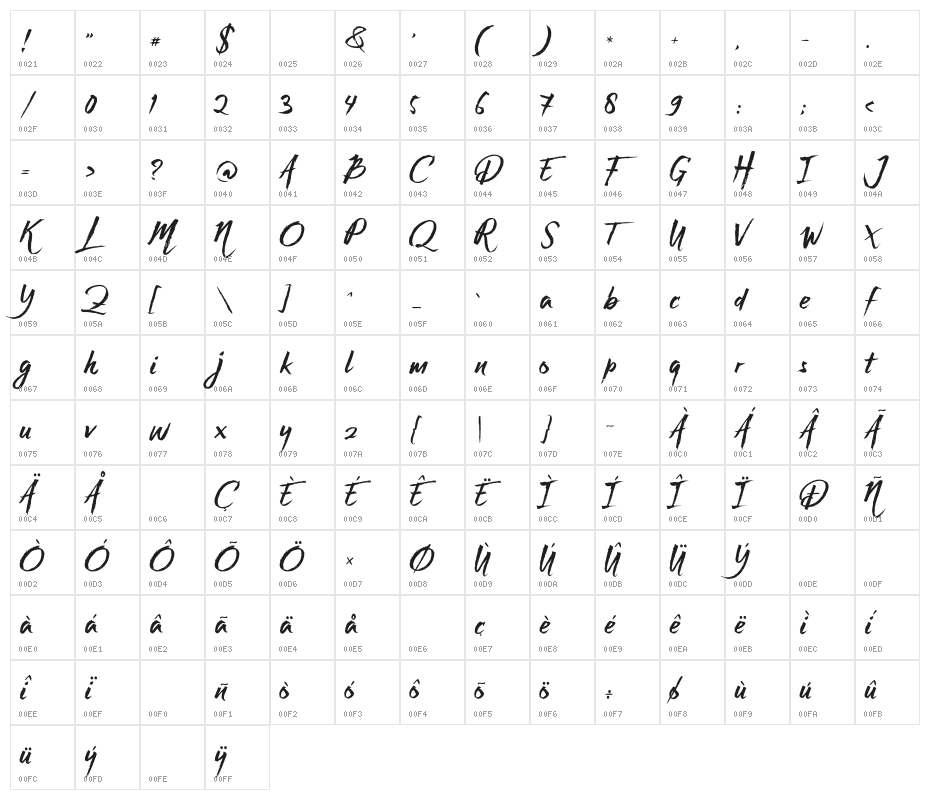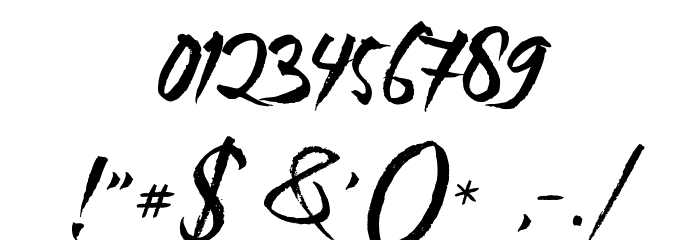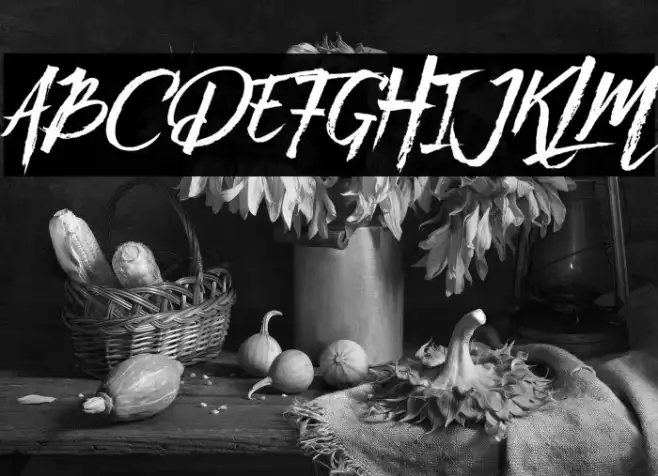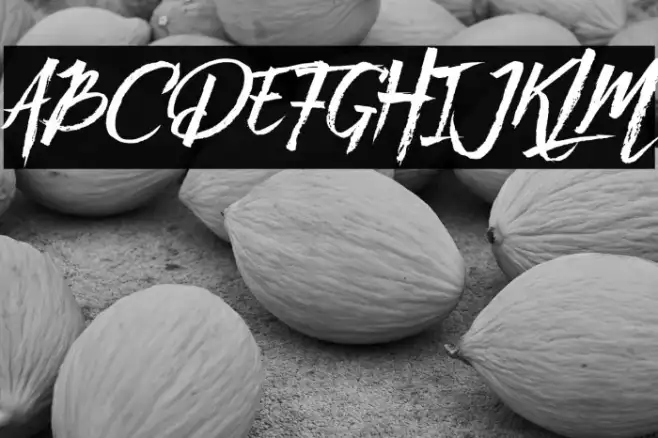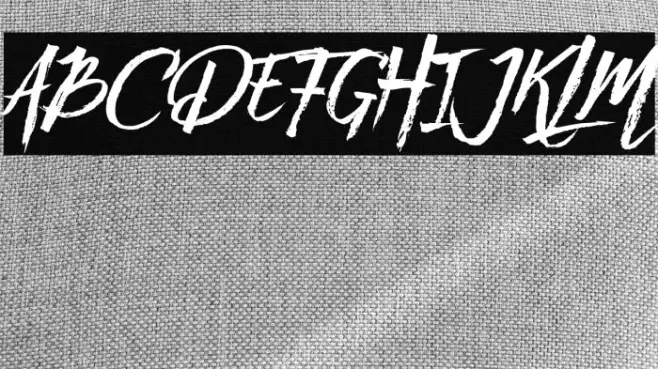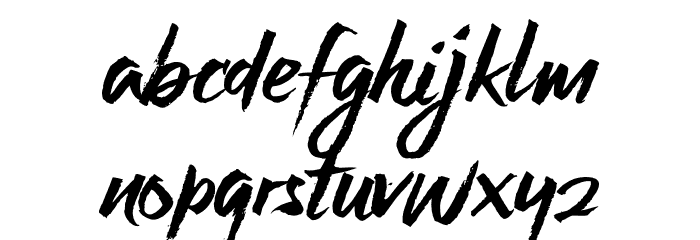
NativeLand Font
NativeLand Description
This font features a bold and expressive brush script style, characterized by its dynamic and energetic strokes. The letters have a hand-painted appearance, with varying thickness that adds a sense of movement and flow. The uppercase letters are particularly striking, with exaggerated curves and sharp angles that create a dramatic effect. The lowercase letters maintain a consistent style, complementing the uppercase with their own fluid forms. Numbers and special characters are designed with the same artistic flair, ensuring a cohesive look across all elements. This font is perfect for projects that require a bold, artistic touch, such as branding, posters, and creative designs.
| Proposed Projects | Ideal for branding, posters, creative designs, and any project needing an artistic touch. |